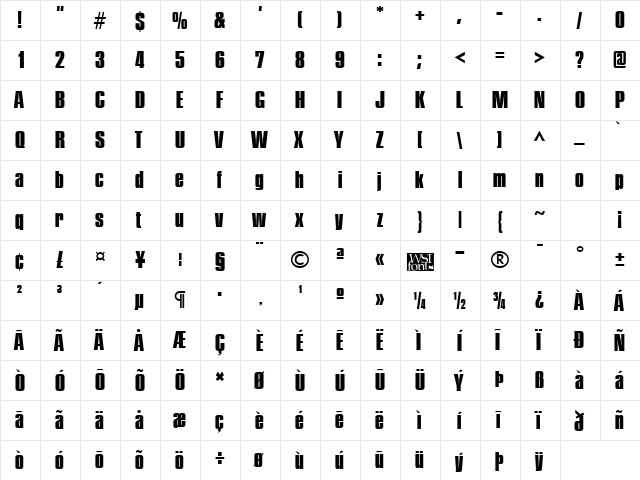
PledgeHeavy Regular
Design Context for PledgeHeavy Typeface
PledgeHeavy offers clean, dependable letterforms without strong stylistic allegiance, making it a practical choice for designers who need flexibility.